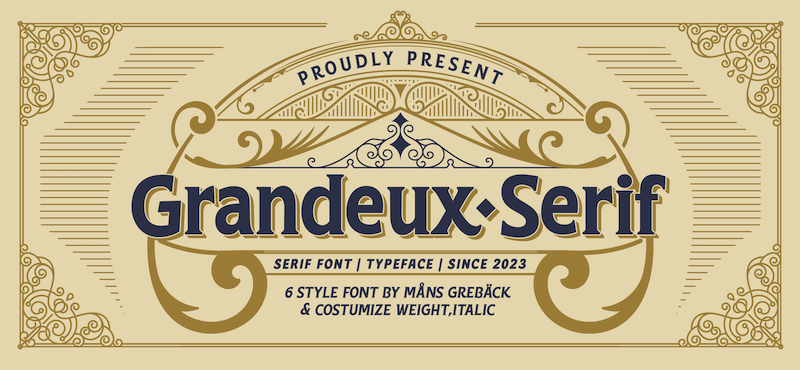
Preview and download Grandeux Serif Font. Created by Måns Grebäck in Basic Serif styles with Free for personal use license.
NOTE: This font is for PERSONAL USE ONLY! To purchase a commercial license, visit: http://mn.sg/grandeux-serif Grandeux Serif is a classic Victorian-inspired font that exudes vintage elegance and sophistication, drawn and created by Mans Greback in 2023. The font's heavy letterforms and high-quality craftsmanship give it a strong presence, while its intricate details and stylistic alternates allow for a truly customized and unique look. For questions, please visit www.mansgreback.com/faq |